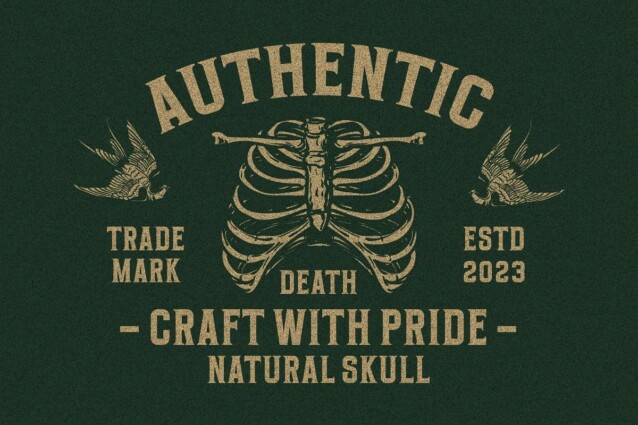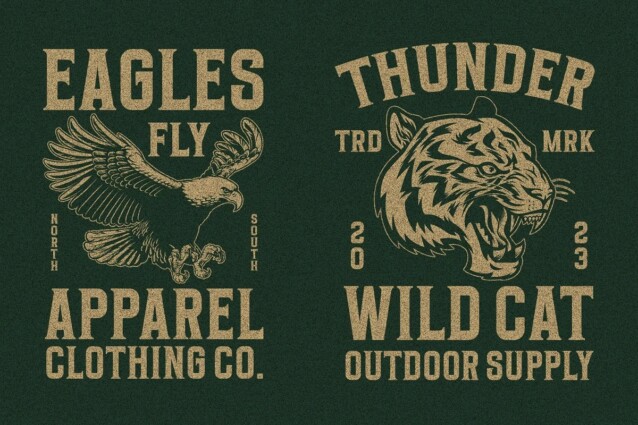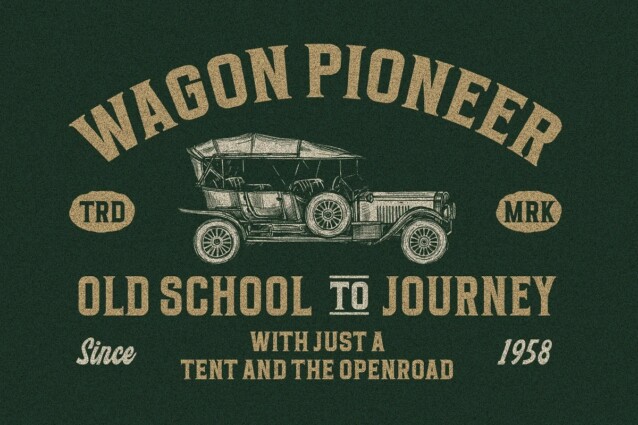
Brewell Font
Brewell Font is an elegant vintage serif font manufactured by Blankids Studio. Inspiring from college typography. This font is perfect for a design that makes it more attractive and playful. made with a very good level of aesthetics making this font suitable for book cover, poster, packging, merchandise, logotype and much more.